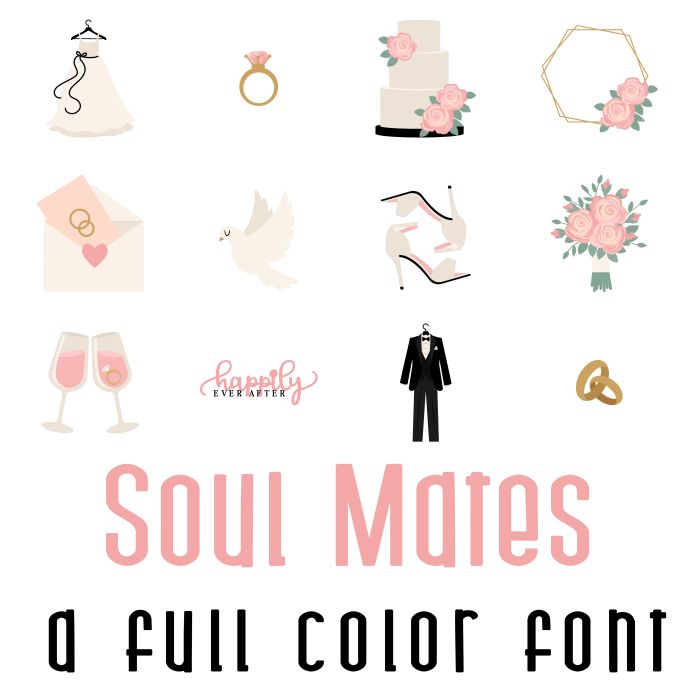
This fun full color font features 26 different wedding and love themed images. Perfect for cards, crafts, gifts, decor, scrapbook pages, planner stickers, and more!